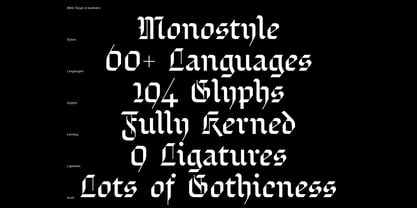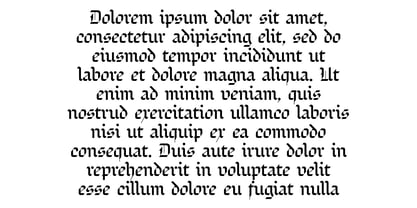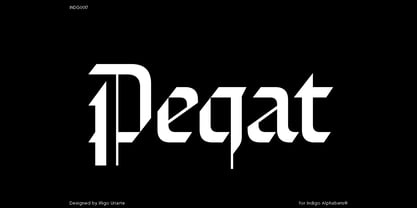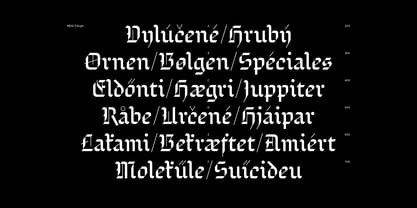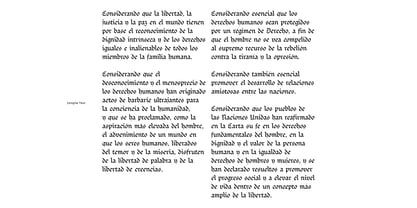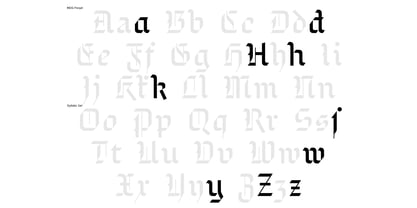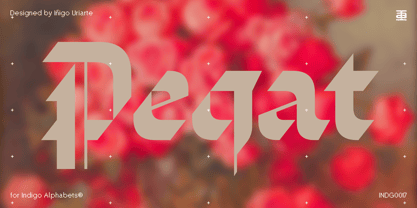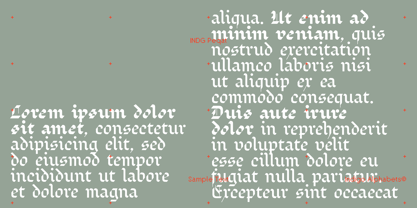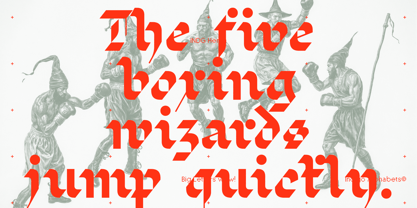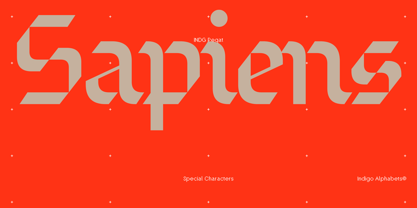
INDG Peqat
by Iñigo Uriarte
INDG Peqat condenses the spirit of old European writing into a modern design language shaped by technology.
ss01: modern H, Z, d, h, k, w, y, z / long s
salt: single story a
Indigo Alphabets™ is an independent type foundry run by Berlin-based designer Iñigo Uriarte. This project aspires to fill a gap in the typographic panorama, as well as to be a platform for the designer's explorative impulse. With a focus on futuristic, blackletter and bitmap typefaces, Indigo Alphabets™ is committed to the highest standard for quality in its work.Happy designing